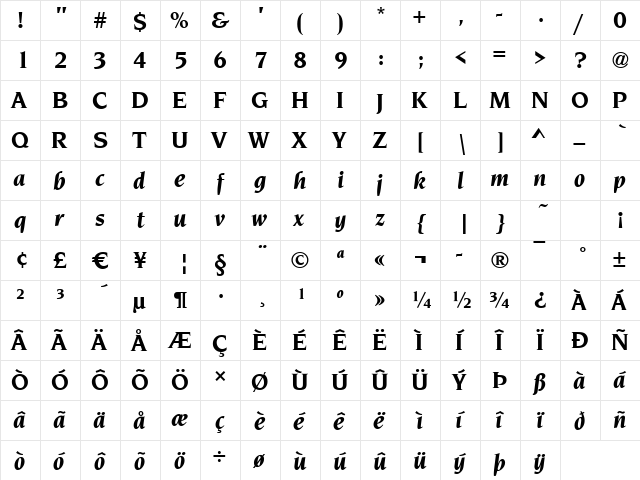
Navarro BoldItalic Font Preview
Navarro BoldItalic
Design Context for Navarro Typeface
Navarro takes a measured approach to typography — its balanced proportions and neutral character make it a reliable workhorse for both digital and print work. The dynamic lean of this cut emphasises speed and emphasis in any layout. Its bold stroke weight gives it real presence on the page.